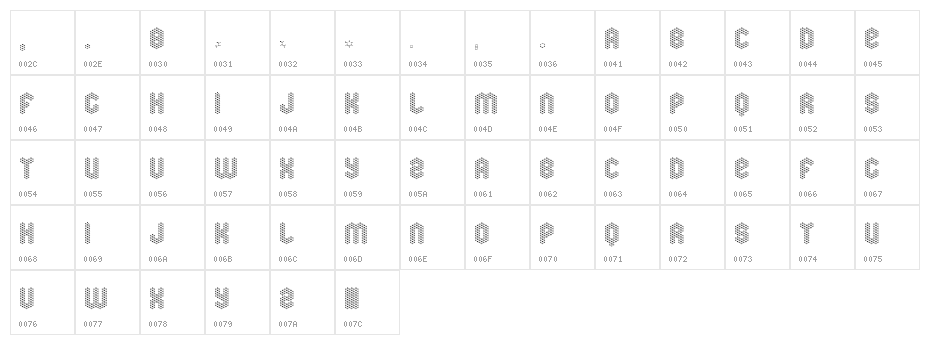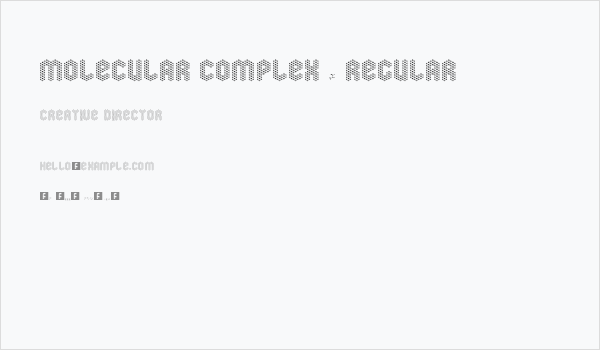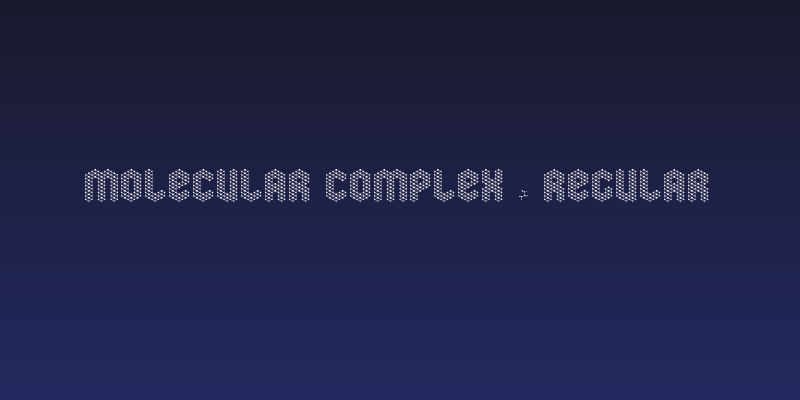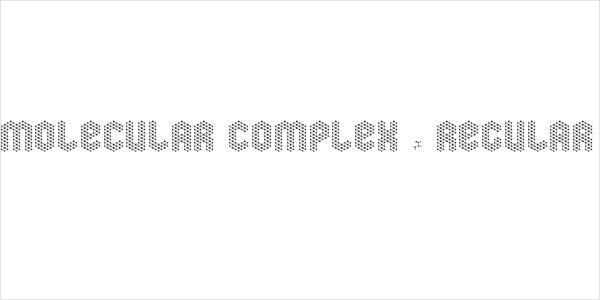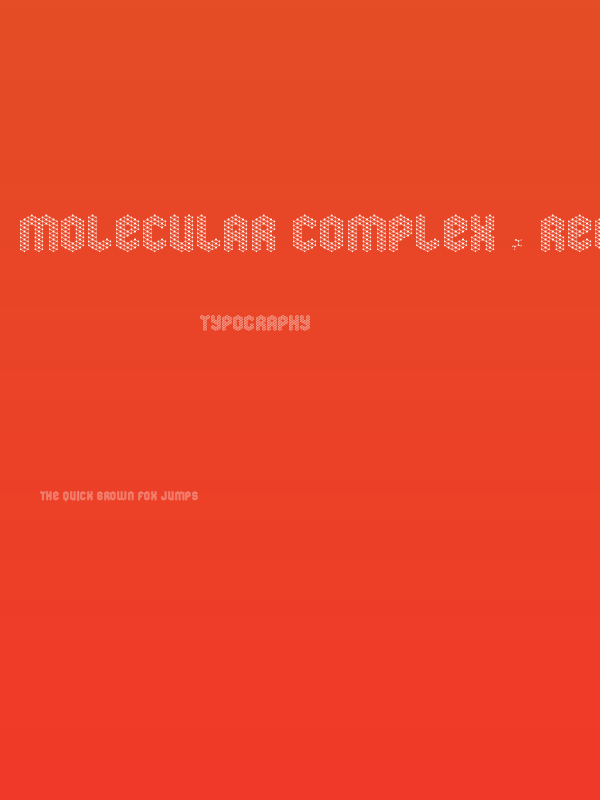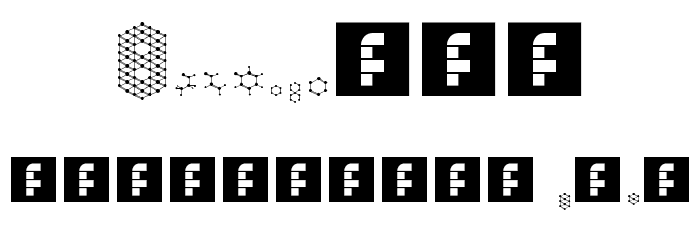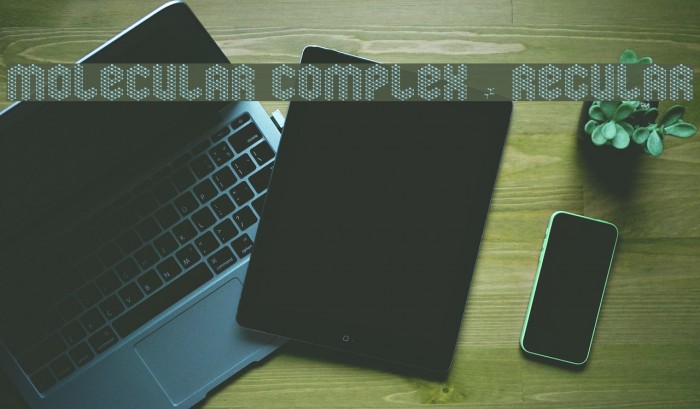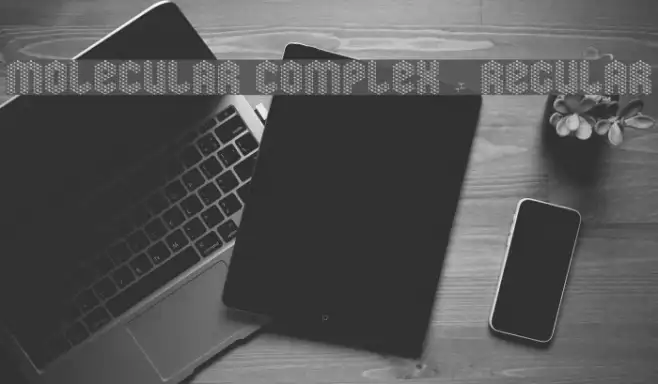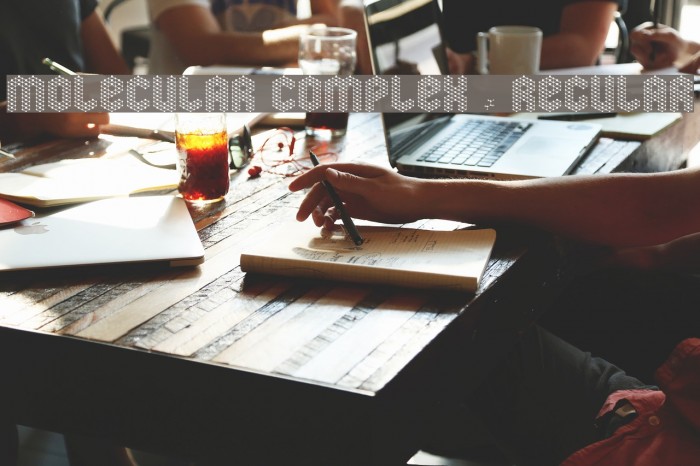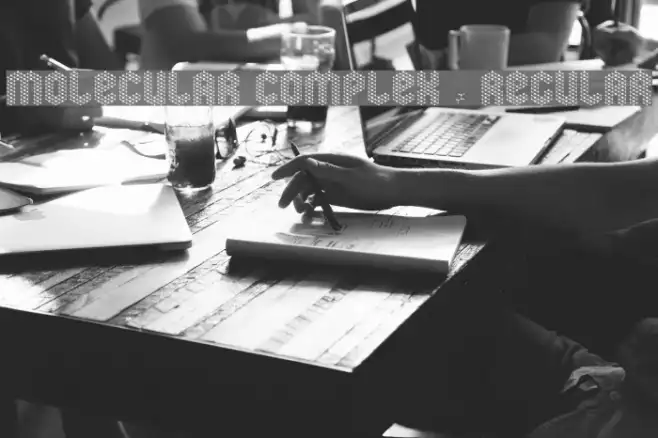
molecular complex 1 Regular Font
molecular complex 1 Regular Description
This font features a unique, geometric design that resembles molecular structures, with each character composed of interconnected hexagonal shapes. The letters are bold and eye-catching, making them ideal for decorative purposes. The intricate pattern within each letter gives a three-dimensional effect, adding depth and complexity to the text. The font maintains a consistent structure across uppercase and lowercase letters, as well as numbers and special characters, ensuring uniformity in design. Its distinct style is both modern and futuristic, appealing to projects that require a scientific or technological theme.
| Overall Style | Futuristic, Modern |
| Proposed Projects | Ideal for science-themed posters, educational materials, technology branding, and futuristic designs. |